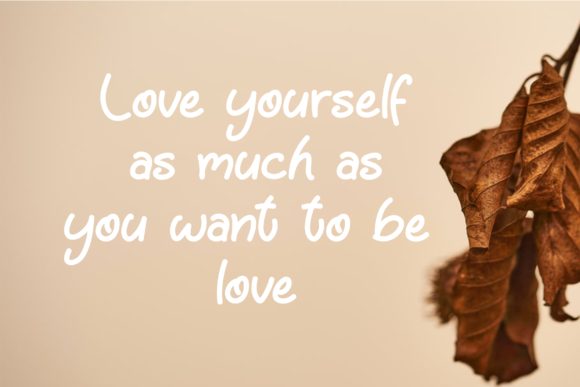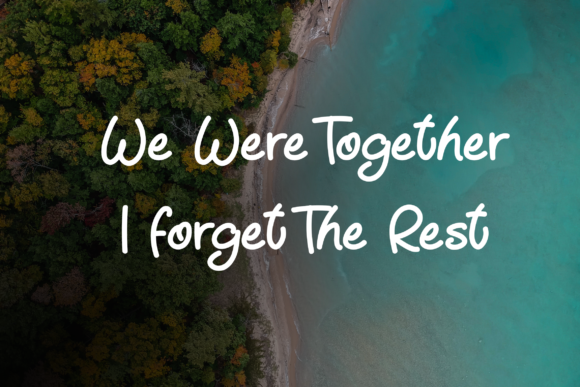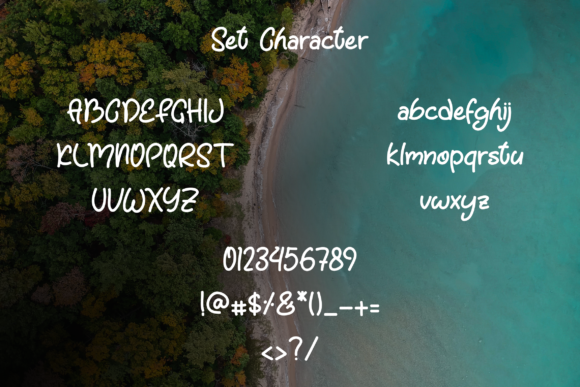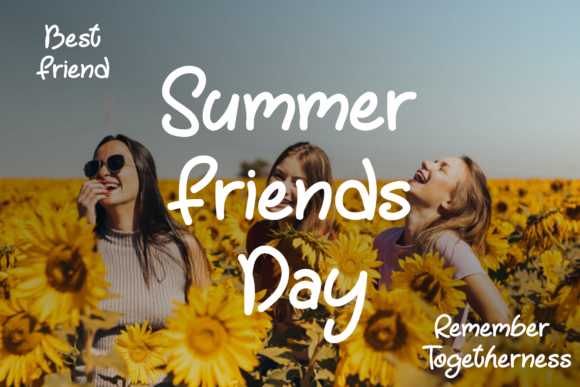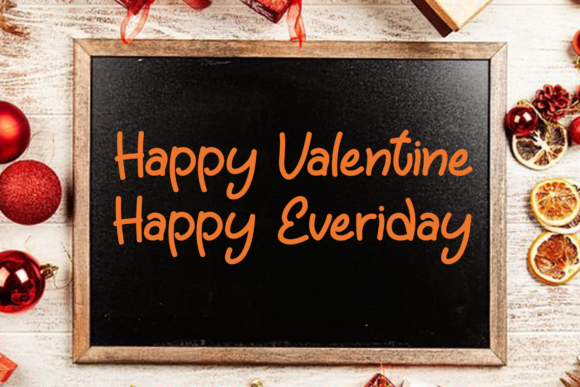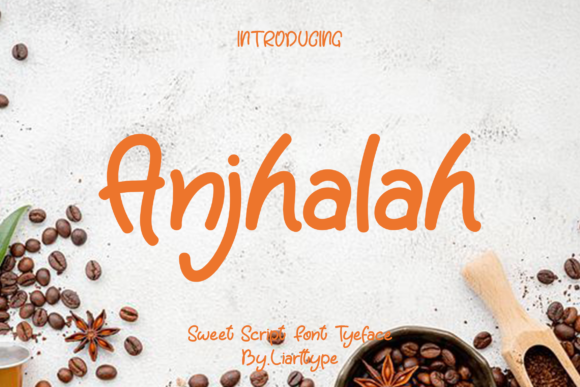
Introducing Anjhala Font: The Ultimate Handwritten Font for Designers and Crafters
In the world of typography, a good font can make all the difference in creating visually appealing designs. For designers and crafters looking for a clean and well-balanced handwritten font, Anjhala Font is an excellent choice. This beautiful font is suitable for various design needs, including business cards, wedding invitations, banner ads, and many other creations.
What is Anjhala Font?
Anjhala Font is a modern handwritten font that exudes elegance and sophistication. Its clean lines and balanced strokes make it perfect for designs that require a personal touch. The font is designed to be versatile, making it suitable for a wide range of applications, from digital designs to print materials.
Key Features of Anjhala Font
• Clean and Well-Balanced: Anjhala Font features clean lines and well-balanced strokes, making it easy to read and visually appealing.
• Handwritten Style: The font has a beautiful handwritten style that adds a personal touch to any design.
• Versatile: Anjhala Font is suitable for various design needs, including business cards, wedding invitations, banner ads, and more.
• Elegant and Sophisticated: The font exudes elegance and sophistication, making it perfect for designs that require a high-end look.
Uses of Anjhala Font
Anjhala Font is a versatile font that can be used for a wide range of design applications, including:
• Business Cards: Create professional-looking business cards with Anjhala Font.
• Wedding Invitations: Add a personal touch to your wedding invitations with this beautiful handwritten font.
• Banner Ads: Use Anjhala Font to create eye-catching banner ads that grab attention.
• Social Media Graphics: Create engaging social media graphics with Anjhala Font.
• Branding: Use Anjhala Font for branding materials, such as logos, brochures, and more.
Benefits of Using Anjhala Font
Using Anjhala Font offers several benefits, including:
• Unique Look: Anjhala Font gives your designs a unique and distinctive look that sets them apart from others.
• Time-Saving: With Anjhala Font, you can create professional-looking designs quickly and easily.
Anjhala Font is a beautiful and versatile handwritten font that is perfect for designers and crafters looking for a clean and well-balanced font. Its elegant and sophisticated style makes it suitable for various design needs, including business cards, wedding invitations, banner ads, and more. With its ease of use, unique look, and cost-effectiveness, Anjhala Font is an excellent choice for anyone looking to add a personal touch to their designs.